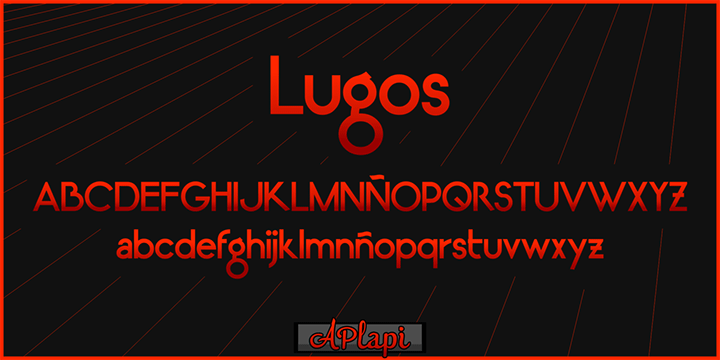
Font name: | Lugos |
Author: | APlaPi |
Note by APlaPi | |
"Lugos" is a sleek and decò, yet practical type which works well in classy titling as in unconventional signage. If you like this font, feel free to show your thankfulness with the 'Get the author some second-hand books via Paypal' button misnamed 'Donate to the Author' situated right below the download button on the right of this page. For any further information please mail me. |